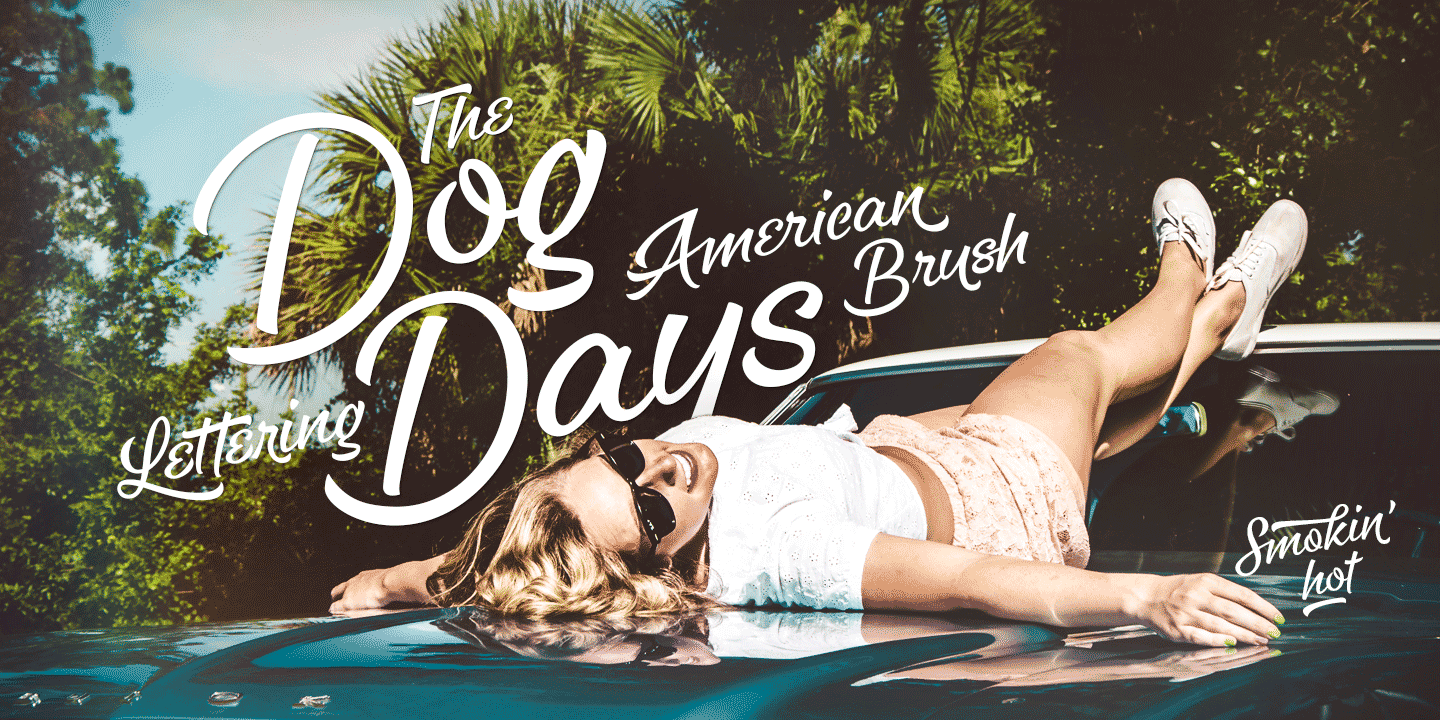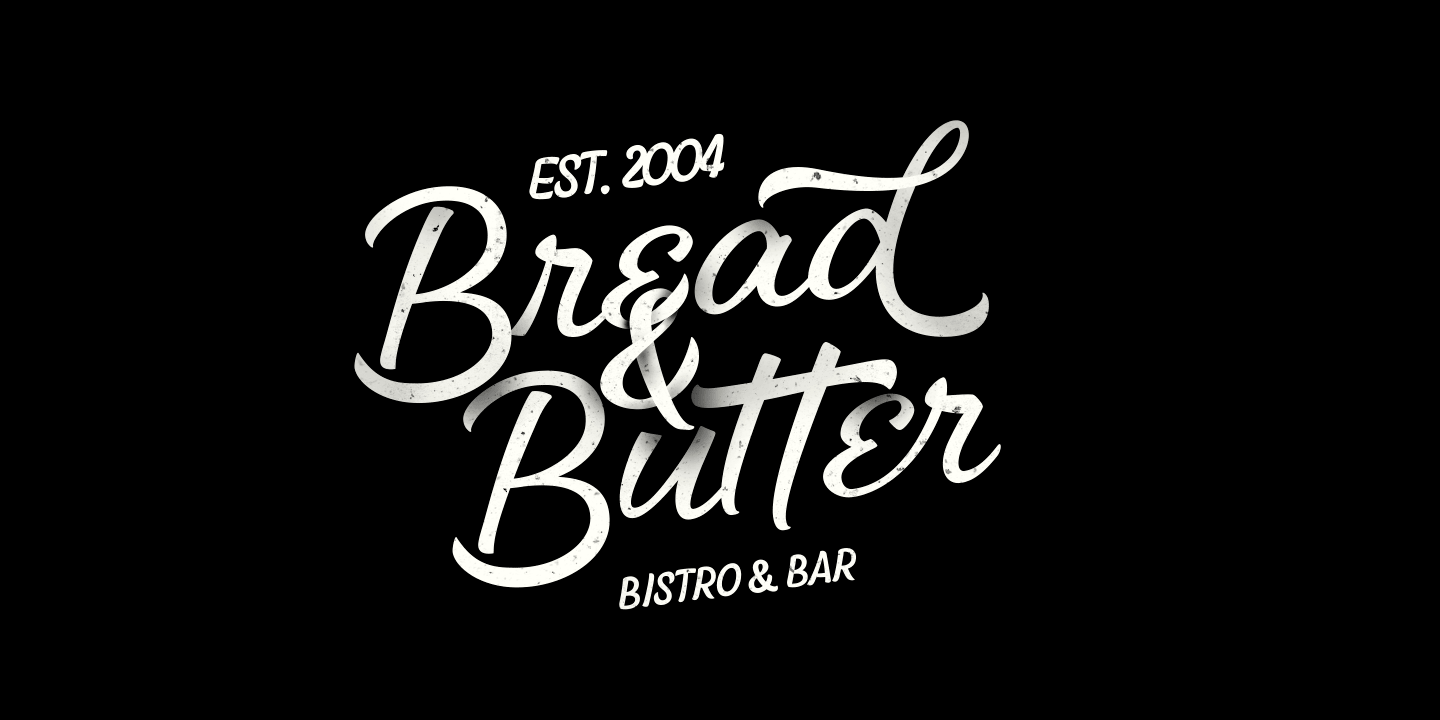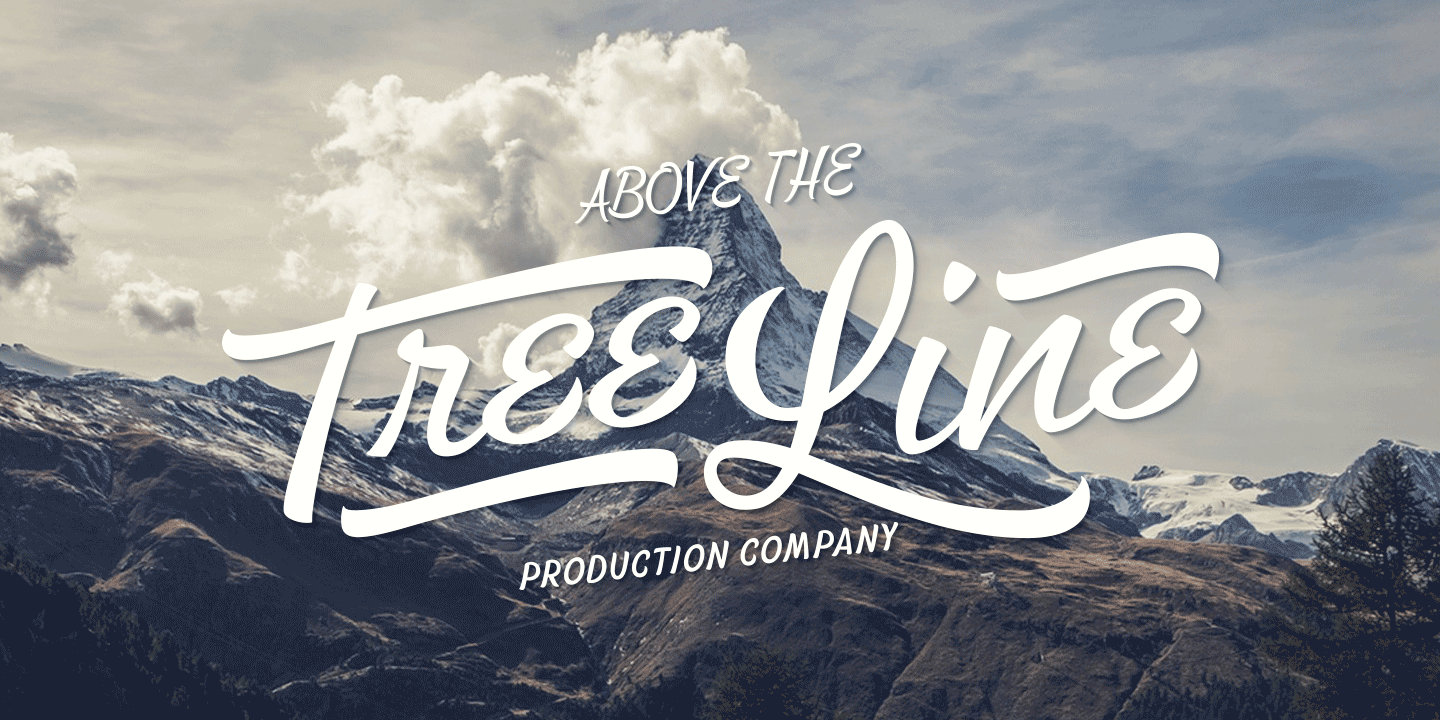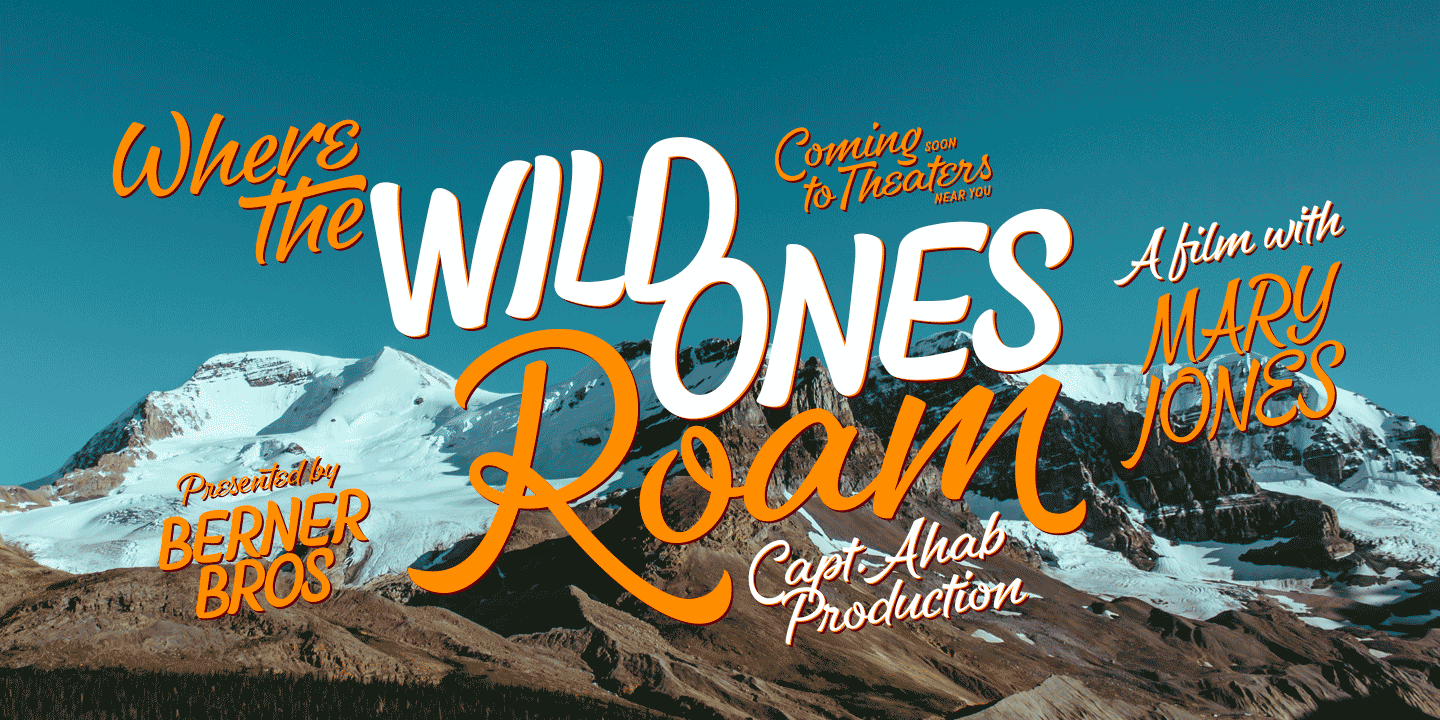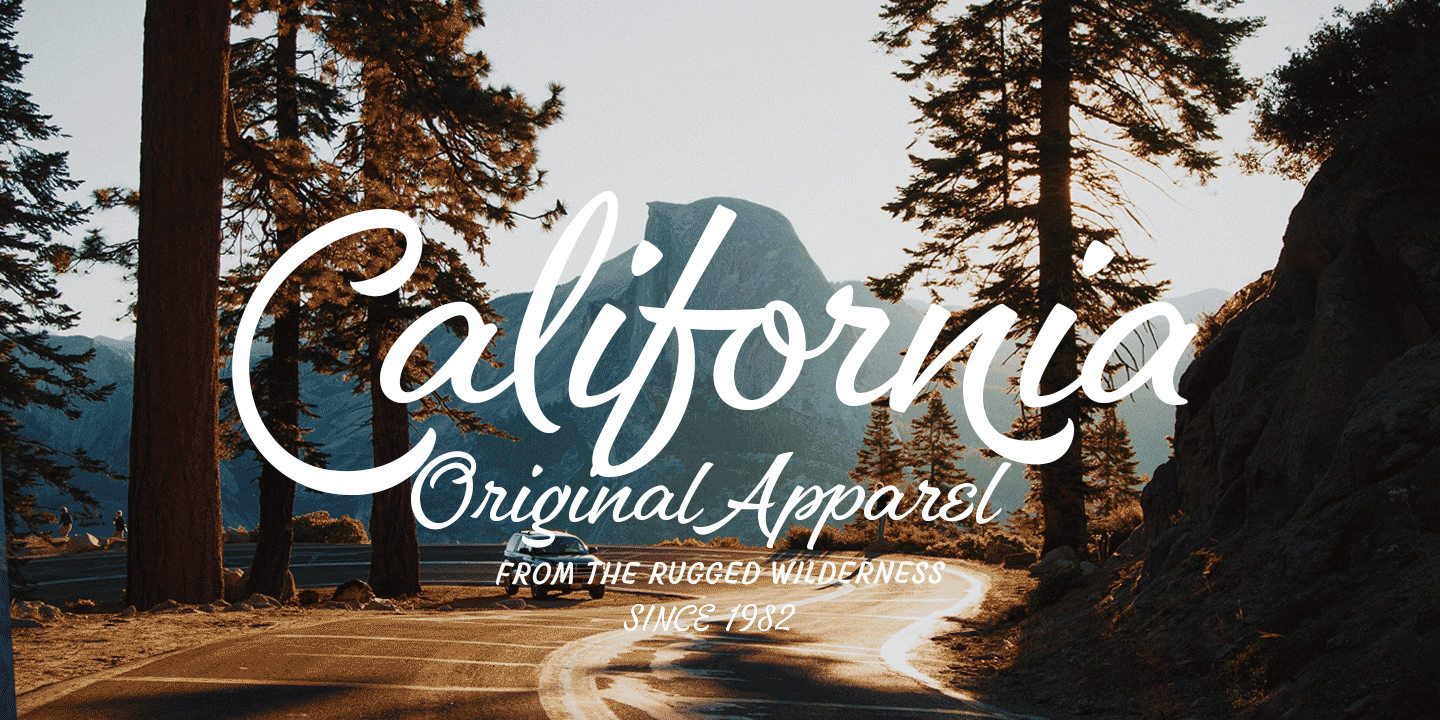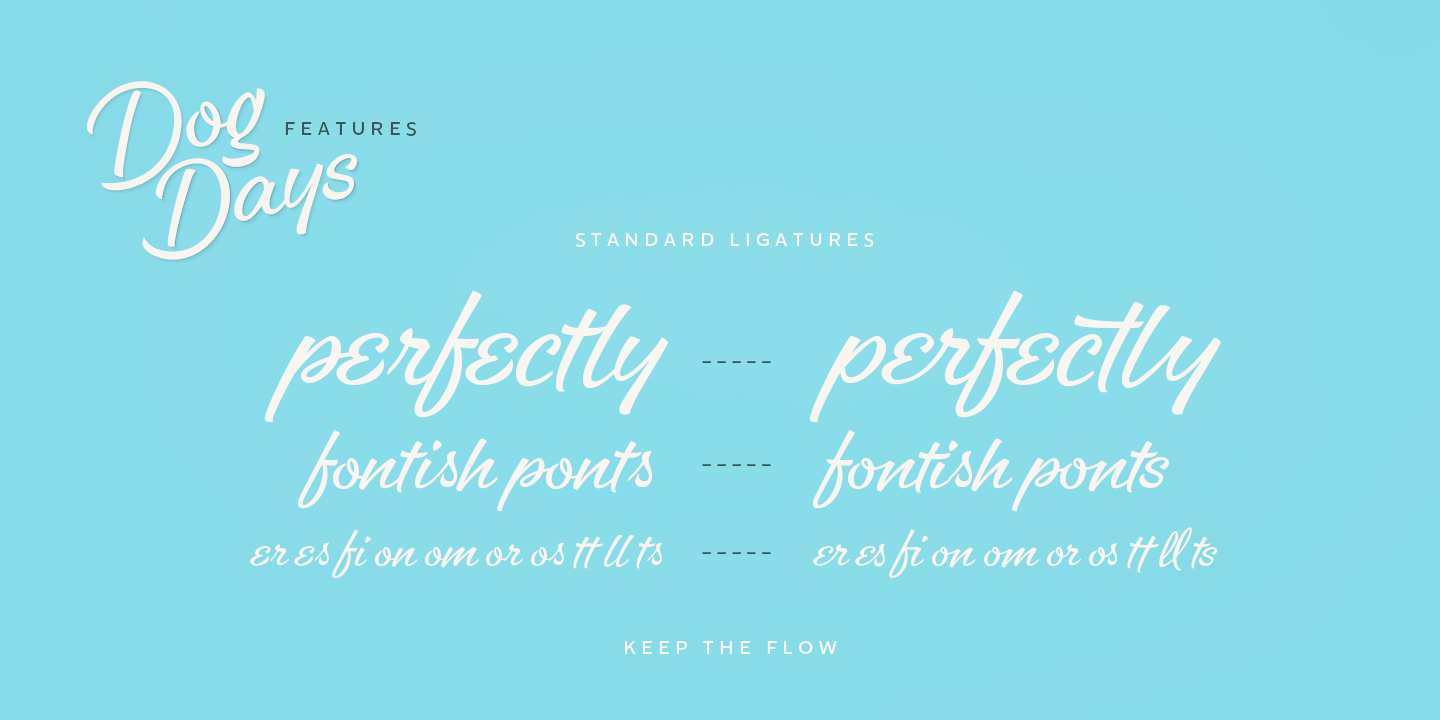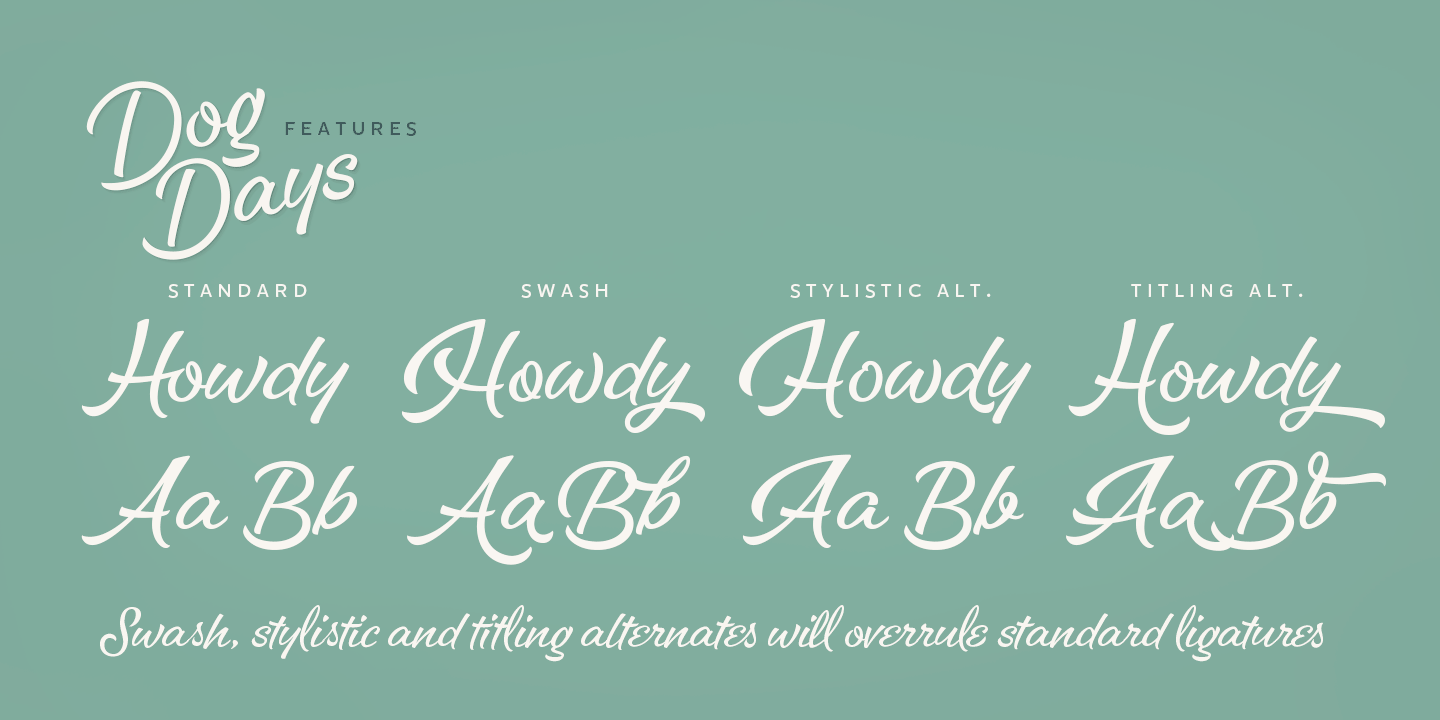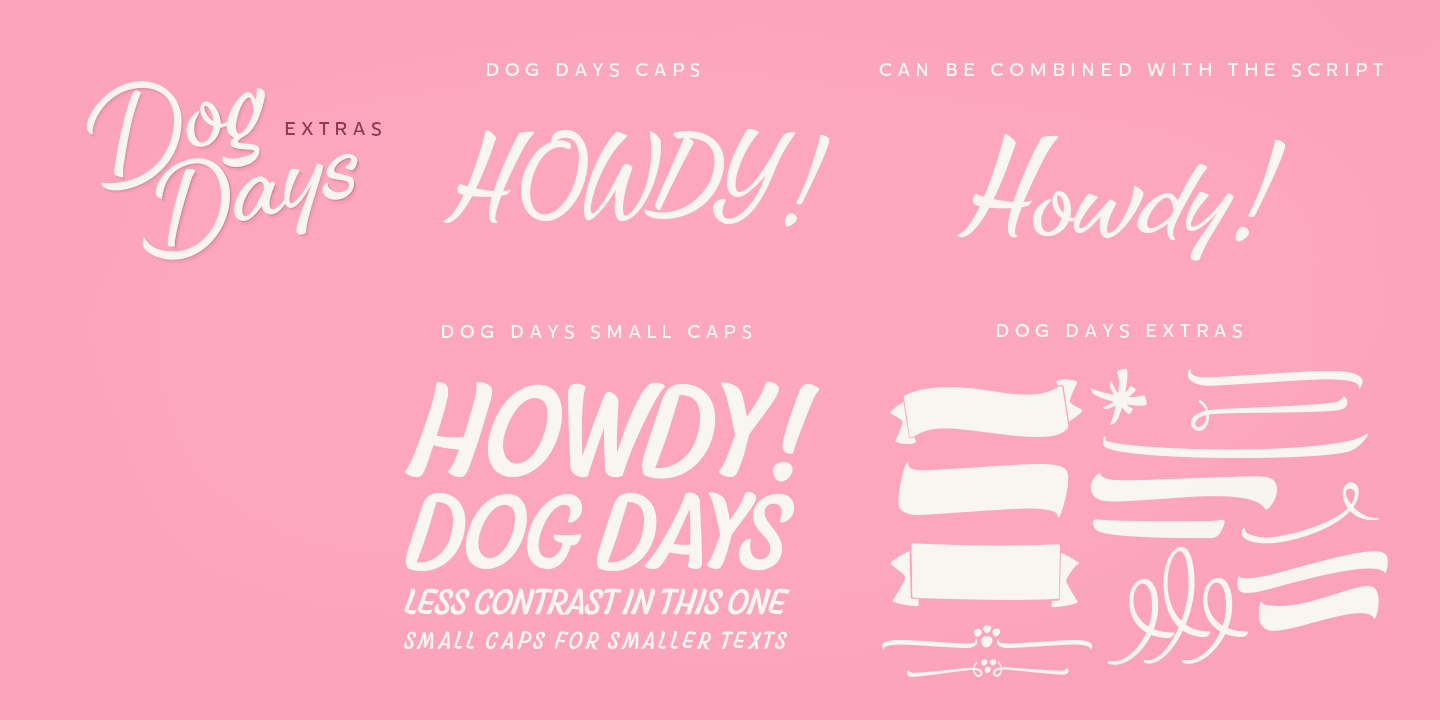
Dog Days
Dog Days is an American hand lettering style brush script family. Dog Days is swift, strong and full of bursting energy. Due to it's clean features it's legible even in small sizes. Dog Days is great for any display use -from poster to packaging and logo to t-shirt. Dog Days is also great for lettering works.
Dog Days Brush uppercase letters are designed to work as initials so if you need to write all caps you might want to use Dog Days Caps or Dog Days Small Caps. Dog Days Caps can also be used as uppercase letters for the script. Dog Days Extras is a set of badges, swashes and swirls designed to play with the font.
Dog Days is inspired by a hand lettering sample in a vintage American swimsuit advertisement.